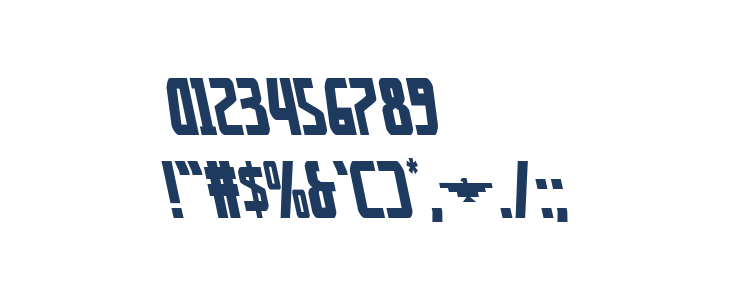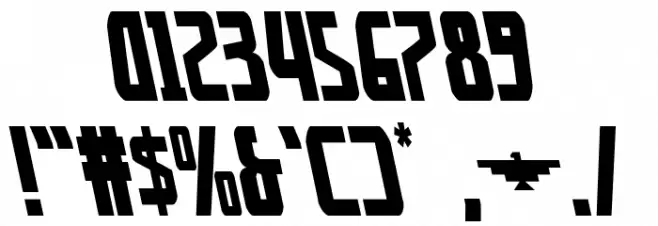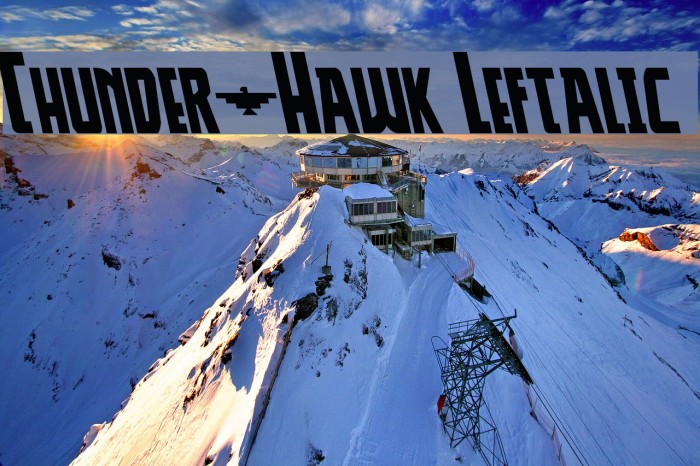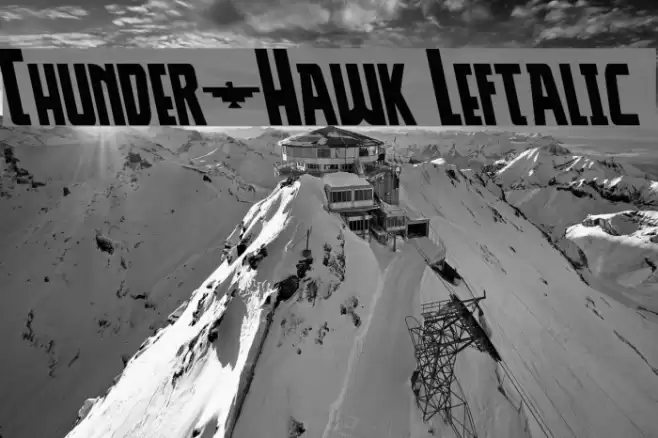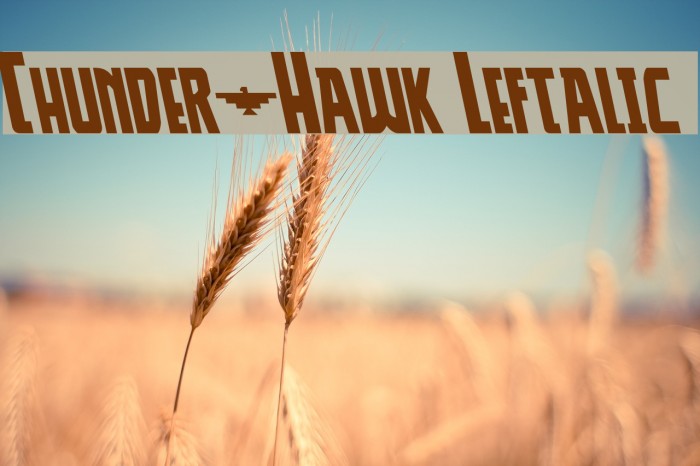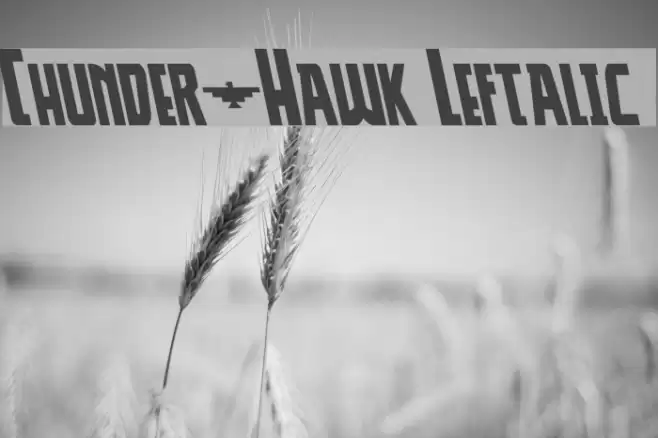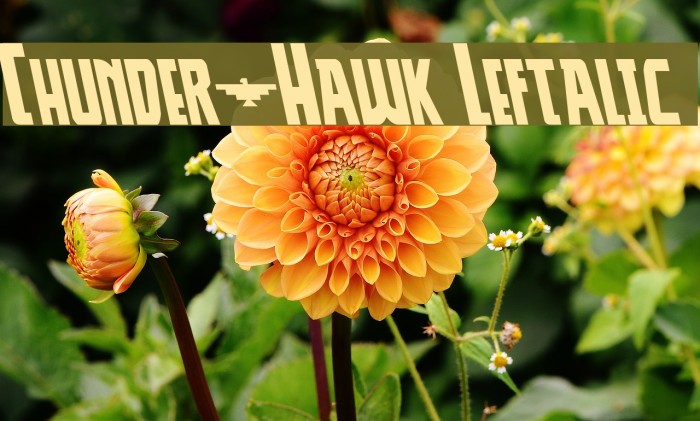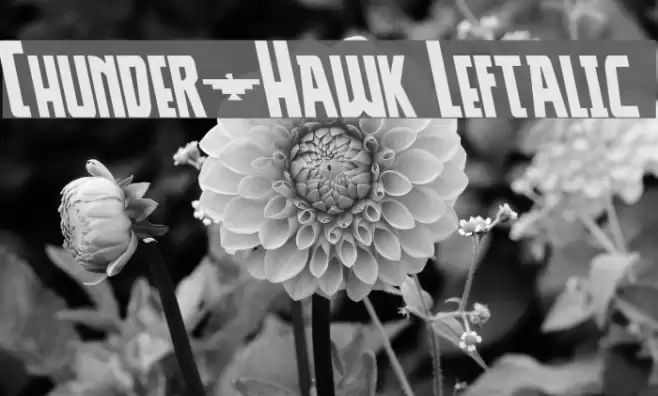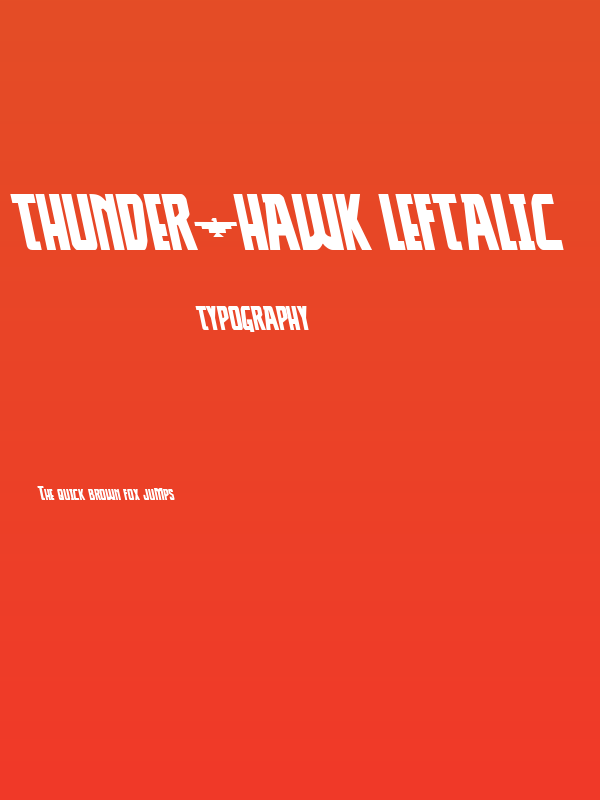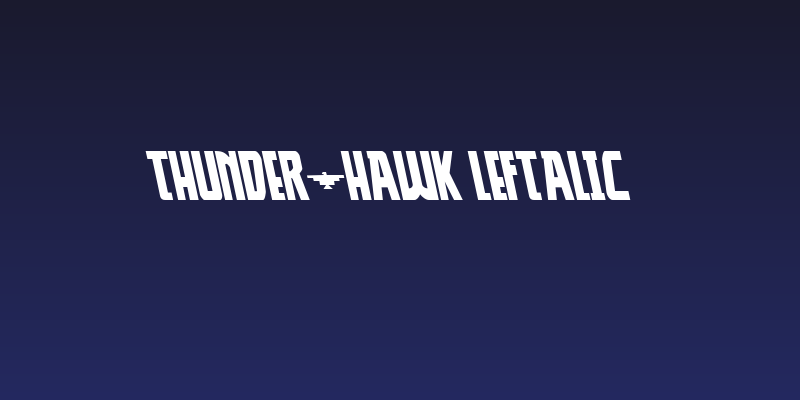
Thunder-Hawk Leftalic Font
Thunder-Hawk Leftalic Description
This font features a bold and angular design with a distinct leftward slant, giving it a dynamic and aggressive appearance. The characters are wide and blocky, with sharp edges and a strong presence. The uppercase and lowercase letters maintain a consistent style, emphasizing the font's boldness. Numbers and special characters are equally robust, making them stand out. The overall design is reminiscent of a futuristic or industrial theme, suitable for projects that require a strong visual impact.
| Overall Style | Modern, Futuristic |
| Proposed Projects | Ideal for sports branding, video game titles, posters, and any project needing a bold, impactful typeface. |